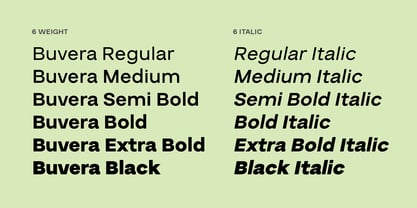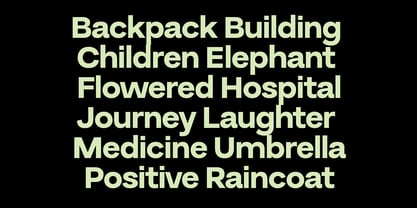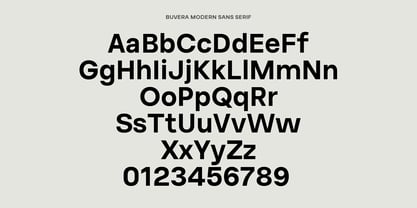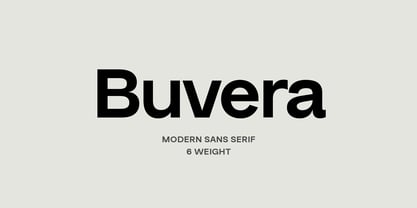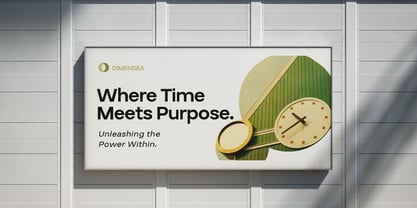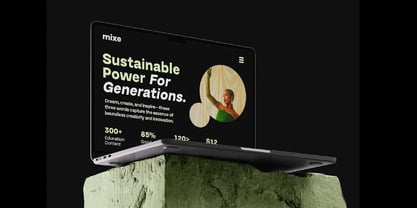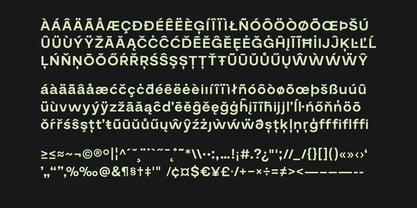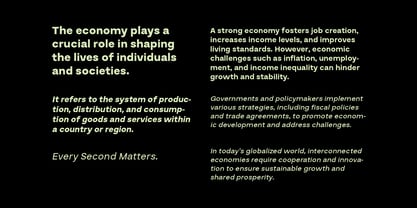
Buvera
by Yukita Creative
Buvera is a modern sans-serif font designed to enhance your creative projects. With 6 weights ranging from Regular to Black, and 6 matching italic styles, Buvera strikes the perfect balance between boldness and elegance. Perfect for eye-catching headlines, clean branding, web design, and more.
Buvera Key Features:
- 6 Weights + Italics: From Regular to Black.
- Multi-Language Support: Supports multiple languages.
- Versatile Design: Suitable for headlines, body text, and branding.
- Optimized for Digital and Print: High readability across all media.
- Modern and Timeless: Relevant and flexible design.
Designers: Yukita Creative
Foundry: Yukita Creative